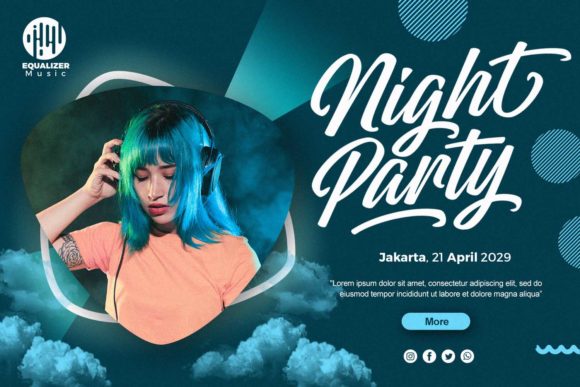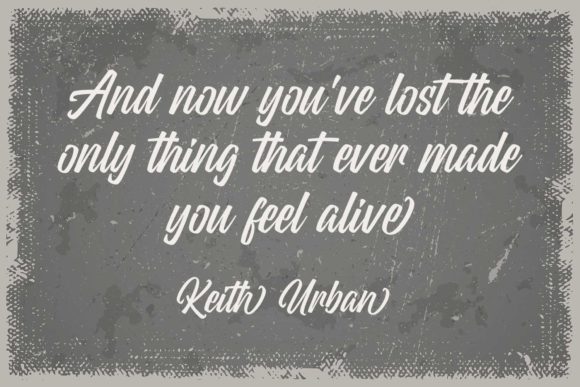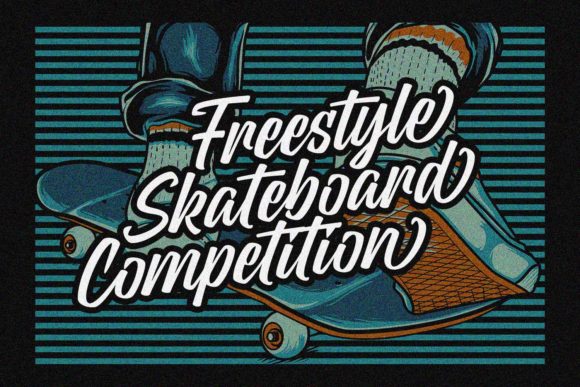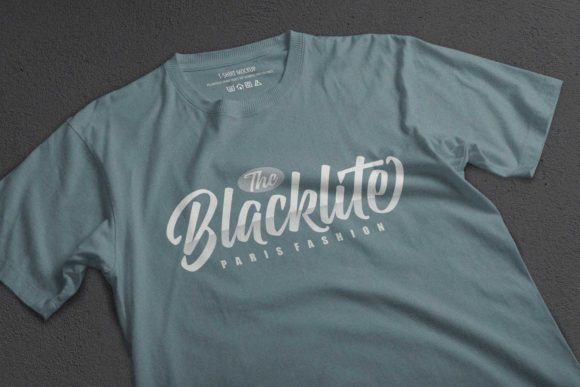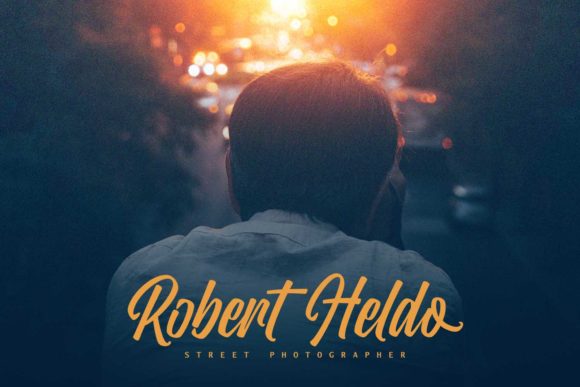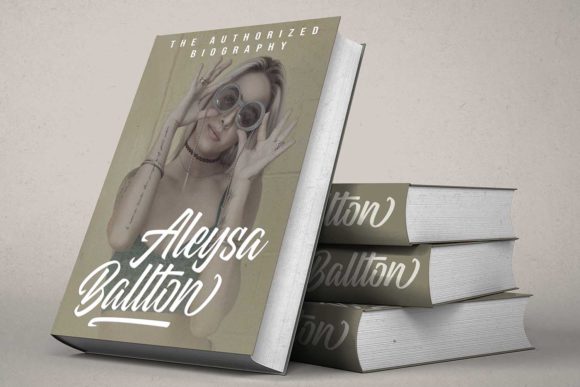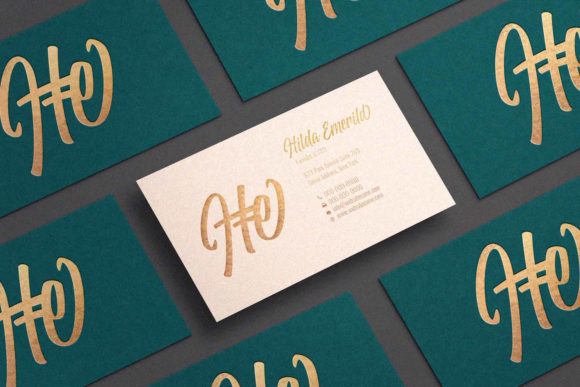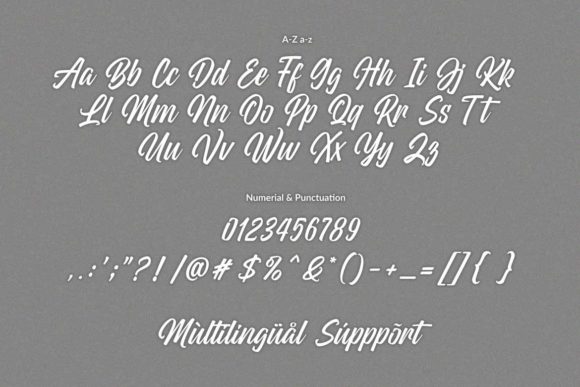
Wildline Font
About Wildline Font
Wildline is a bold and timeless handwritten font that combines elegance with a touch of playfulness. With its clean lines and unique character, this font is the perfect choice for a wide range of design projects, including logos, branding, social media, and crafty DIY endeavors.
The bold nature of Wildline gives your designs a strong and impactful presence. Whether you’re creating a logo for a cutting-edge startup or designing eye-catching social media graphics, this font will make a statement and help your brand stand out from the crowd.
What sets Wildline apart is its classic handwritten style, which adds a touch of authenticity and charm to any design. The clean and legible letterforms ensure that your message is conveyed clearly, even at smaller sizes. This makes Wildline a versatile choice for various industries and themes, from fashion and beauty to food and lifestyle.
With its PUA encoding, accessing the glyphs and swashes of Wildline is effortless. This means you can easily add decorative elements and flourishes to your designs, allowing for even more customization and creativity.
Whether you’re a professional designer or a DIY enthusiast, Wildline offers a wide range of possibilities. It’s a font that adapts to your creative vision, enhancing the visual impact of your projects and capturing the attention of your audience.
In conclusion, Wildline is a bold and classic handwritten font that brings a clean and quirky vibe to your designs. Its versatility makes it suitable for a variety of applications, from logos and branding to social media and DIY projects. With its PUA encoding, accessing the full potential of Wildline is effortless. Embrace the charm and uniqueness of this font to elevate your designs and make a lasting impression.